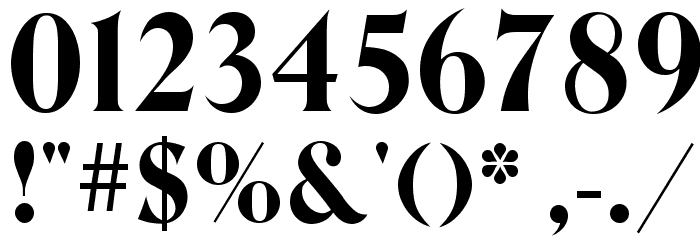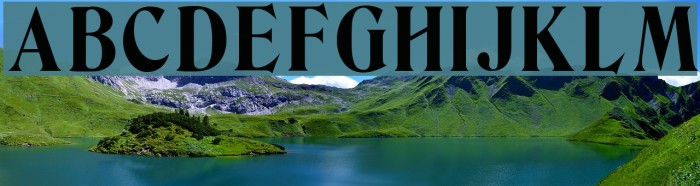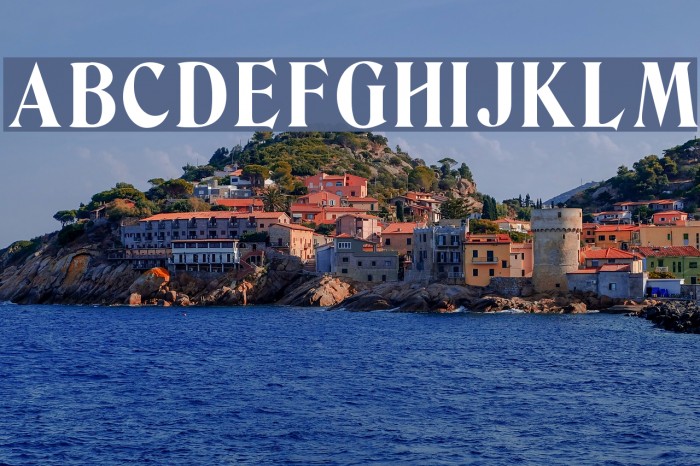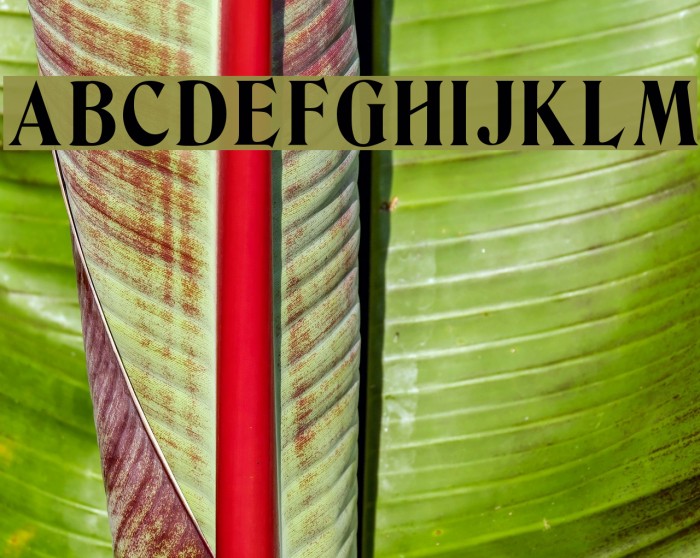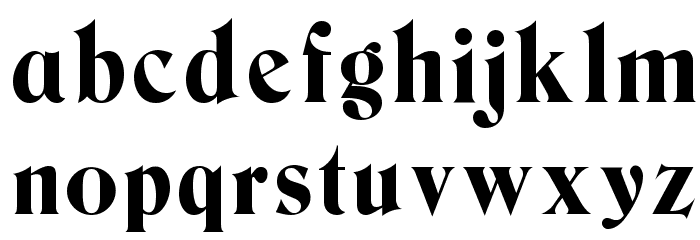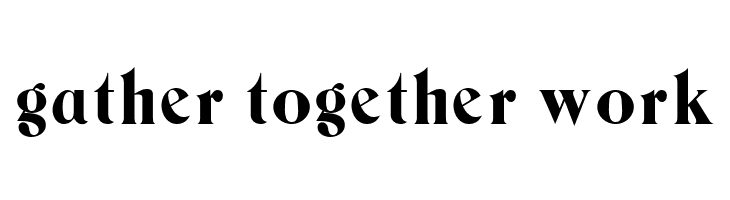
Berns Font
This font exhibits a bold and striking serif style with high contrast between thick and thin strokes, giving it a dramatic and elegant appearance. The serifs are pronounced and sharp, adding a touch of sophistication and classic appeal. The uppercase letters are tall and commanding, while the lowercase letters maintain a consistent flow with rounded edges and distinct curves. The numerals are robust and align well with the overall boldness of the font. Special characters are crafted with the same attention to detail, ensuring a cohesive look across all glyphs. This font is suitable for making a strong visual impact, ideal for headlines and titles that require a touch of elegance and authority.
A bold, high-contrast serif font with sharp serifs and elegant curves.
• Proposed Projects: Ideal for luxury branding, editorial headlines, book covers, and high-impact posters.
• Category: Serif
• Bold: Yes
• Italic: No
• Weight: Bold
• Width: Normal
• Character Spacing: Normal
• Contrast: High
• Overall Style: Classic
• Use Case: Headlines, Logos